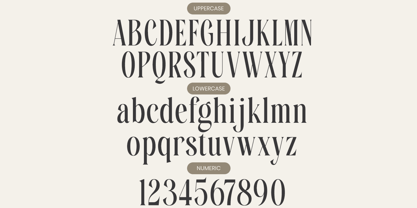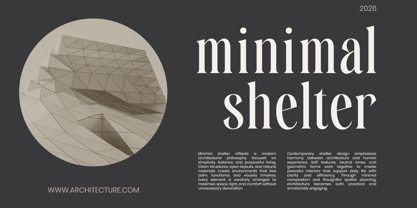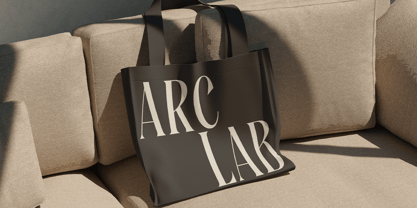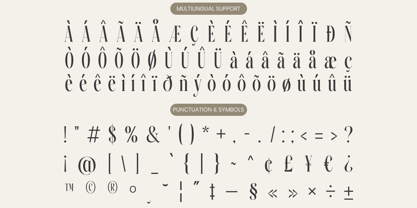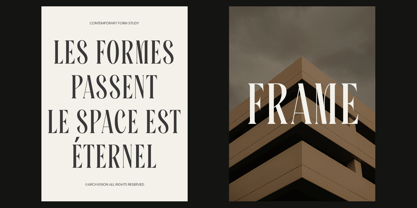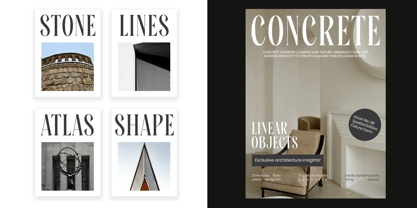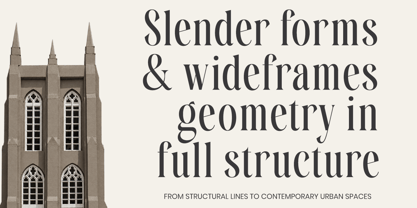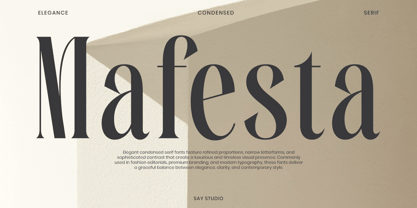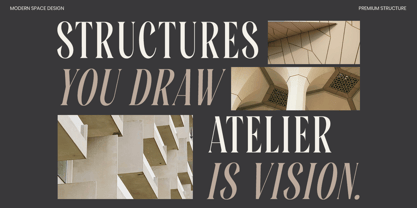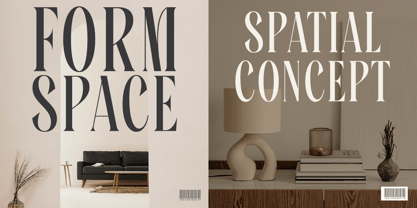
Mafesta
The Mafesta Font Family was designed by Mussyayin and published by Say Studio. Mafesta contains 2 styles and family package options. More about this family
Mafesta is an elegant condensed serif typeface that blends timeless sophistication with contemporary refinement. Featuring slender proportions, high-contrast strokes, and graceful curves, this font creates a luxurious visual presence perfect for premium branding, fashion editorials, architecture publications, interior design projects, and upscale packaging. Its distinctive condensed structure maximizes impact while maintaining exceptional readability and elegance.
Inspired by modern architecture, editorial typography, and minimalist aesthetics, Mafesta delivers a harmonious balance between classic serif beauty and contemporary design trends. The refined letterforms bring a sense of exclusivity and artistic sophistication, making it an ideal choice for logos, magazine headlines, luxury campaigns, boutique branding, and high-end visual identities.
Whether used for striking headlines, elegant monograms, premium product packaging, or sophisticated marketing materials, Mafesta elevates every design with confidence, style, and timeless appeal. The font’s dramatic contrast and architectural elegance make it a versatile asset for designers seeking a luxurious and memorable typographic statement.